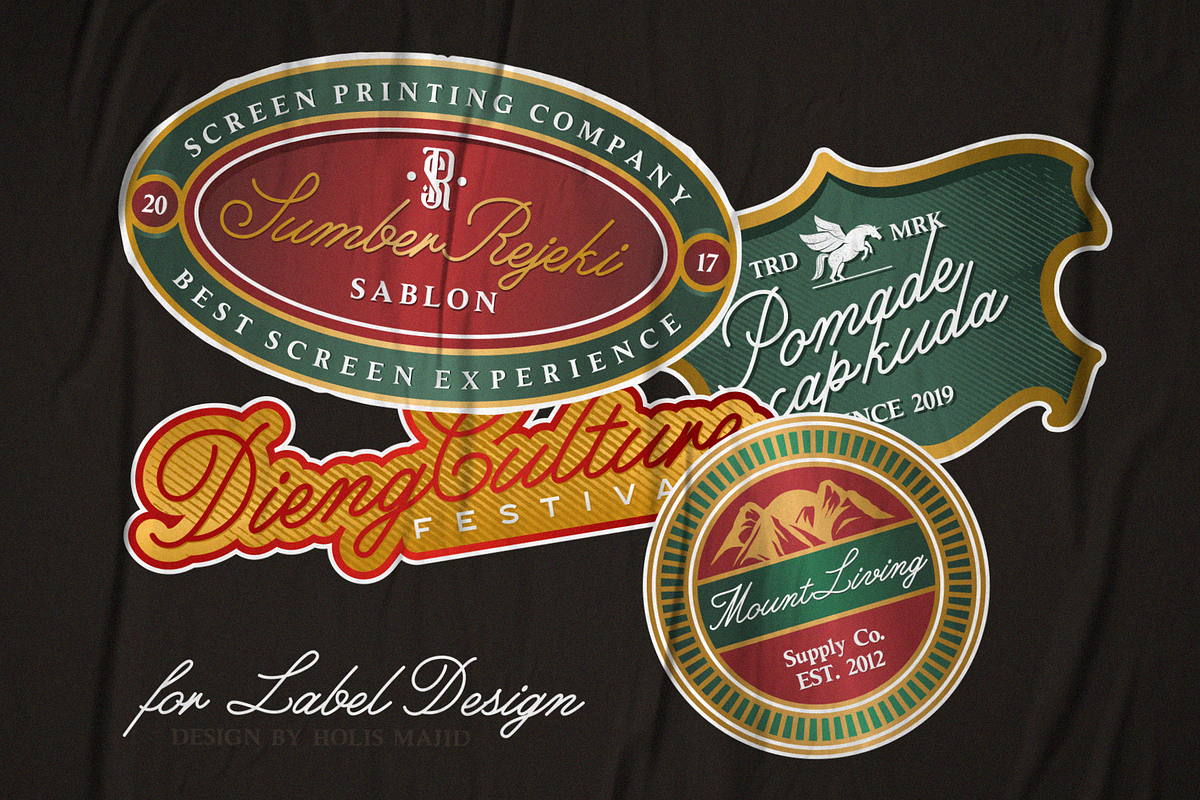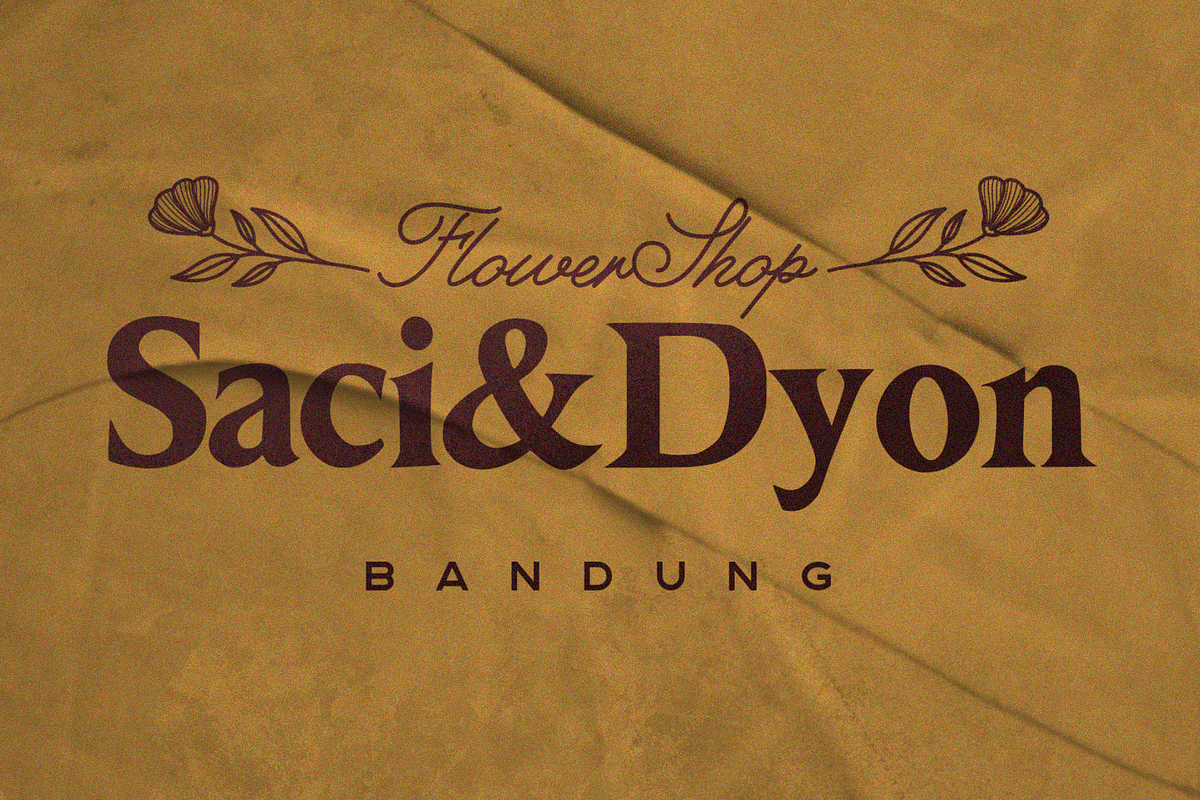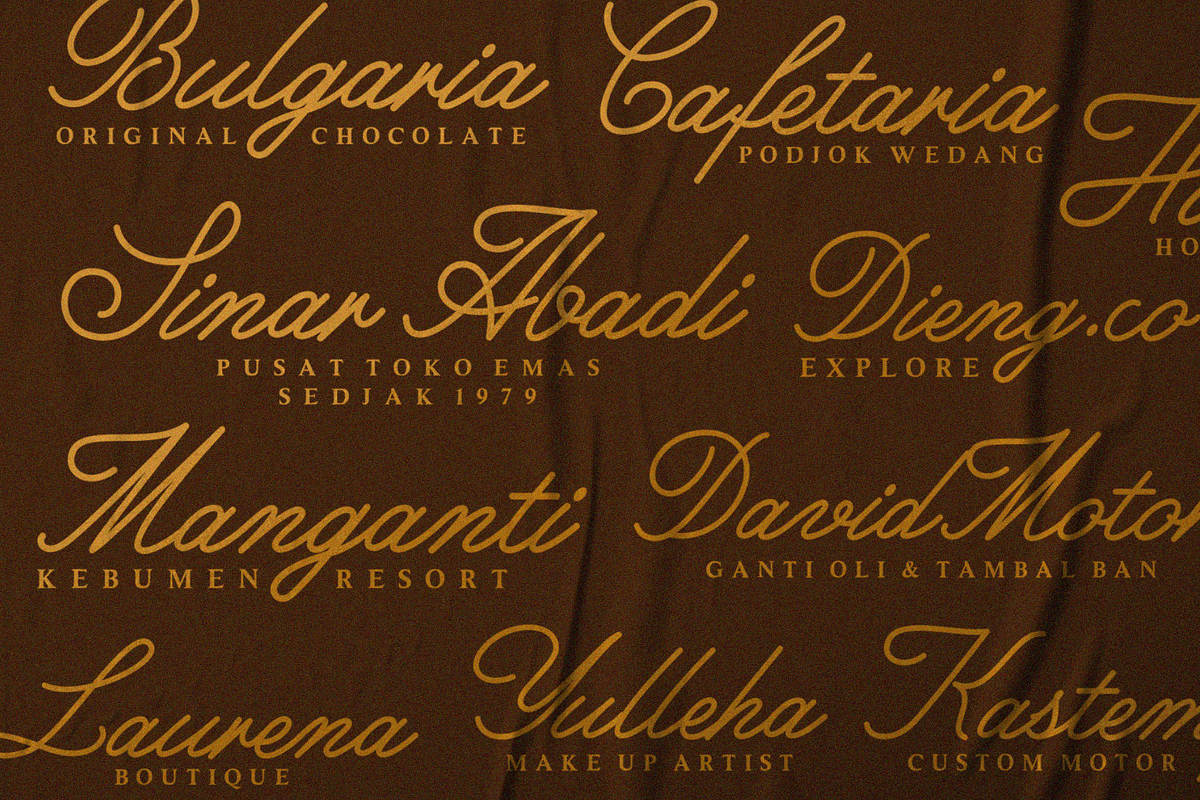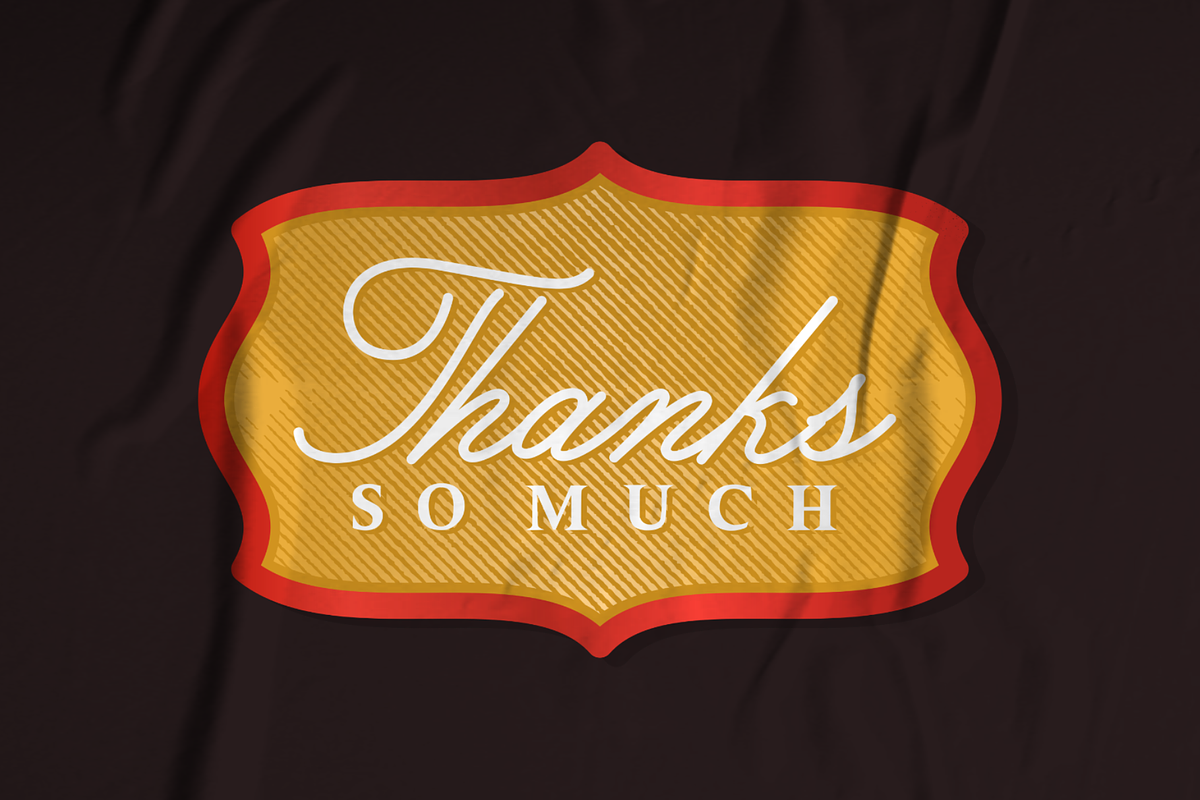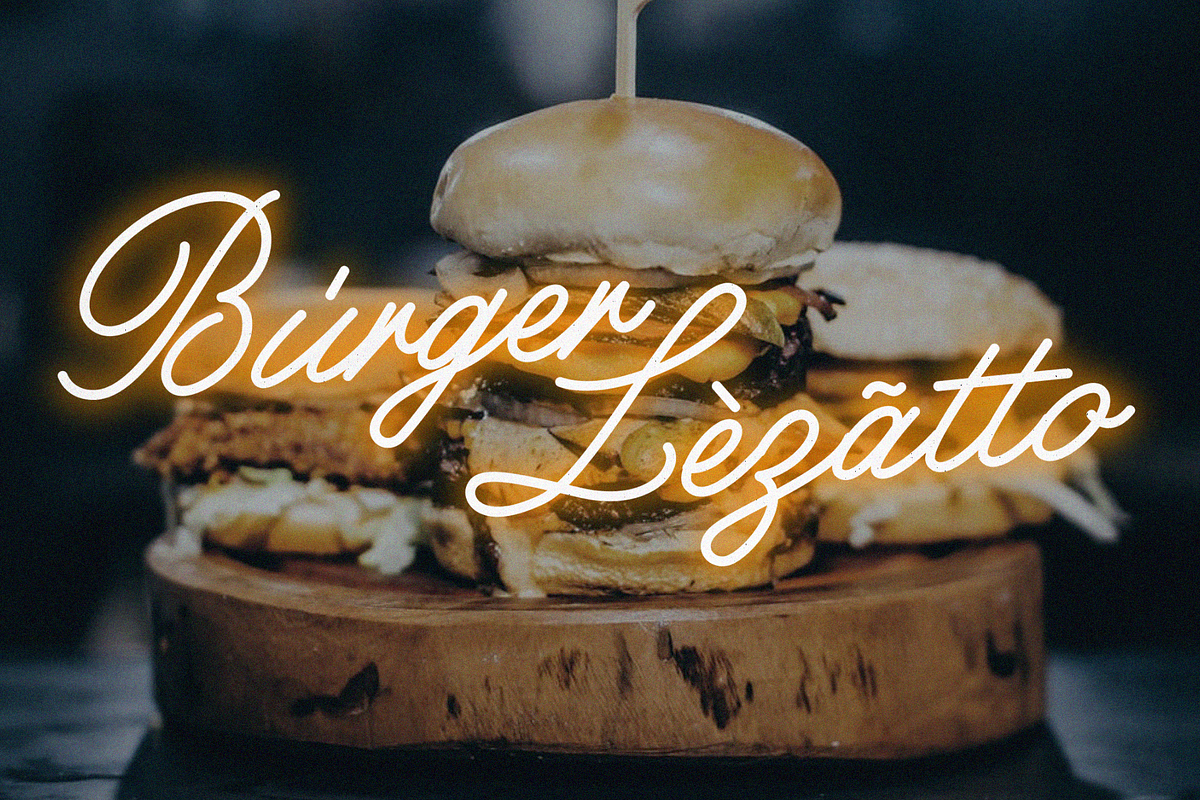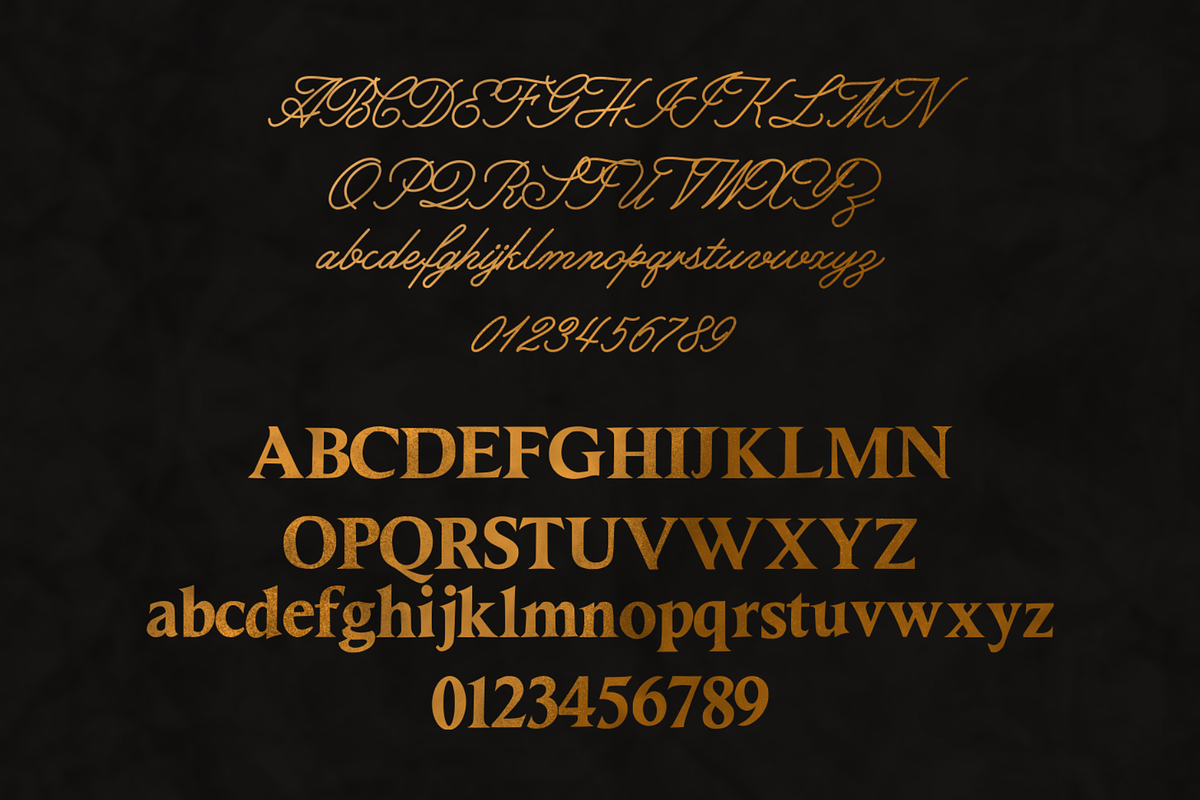
Maghnoyha DUO FONT
Maghnoyha is a duo font with calligraphy monoline and rough sans serif style fonts, where this font gives more towards the classic so this font is suitable for logos, product labels, quotes, advertisement posters and classic style design needs.
- MULTILINGUAL SUPPORT
- Number,
- Uppercase & Lowercase
- Punctuation.